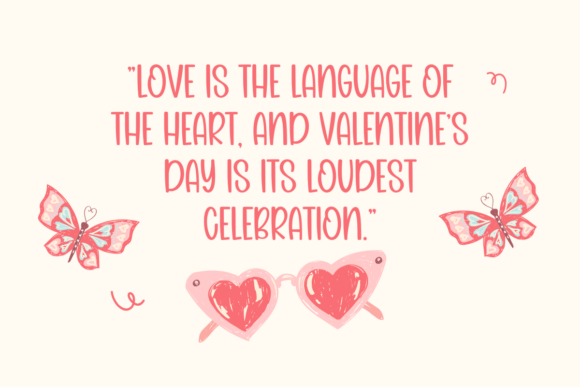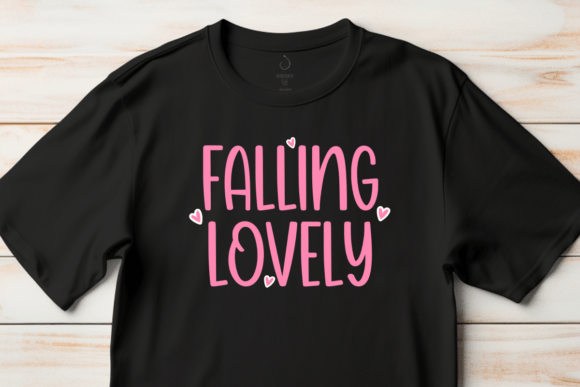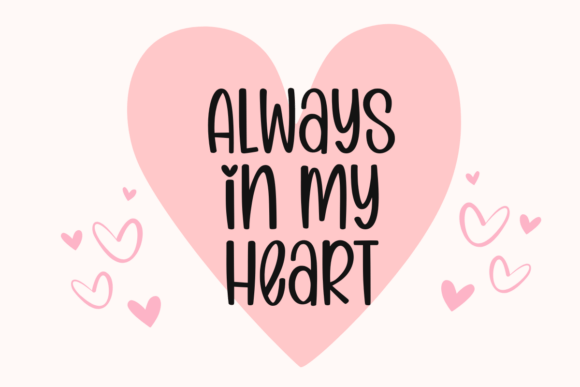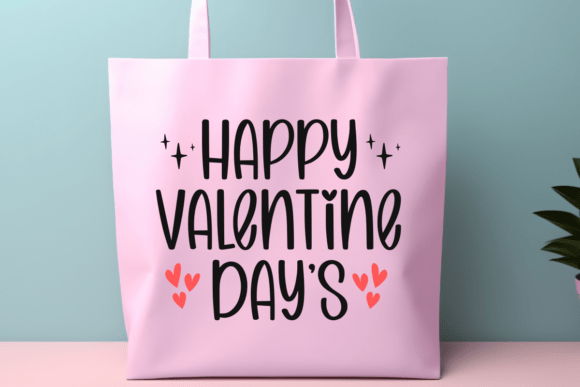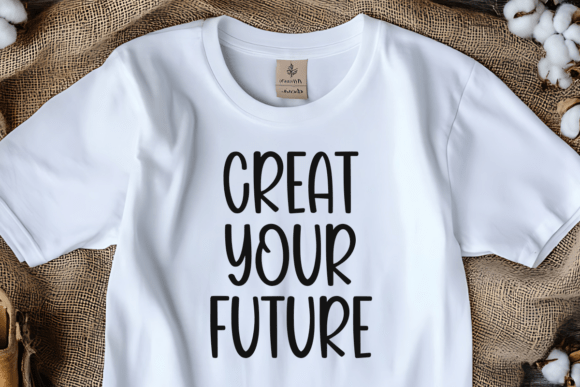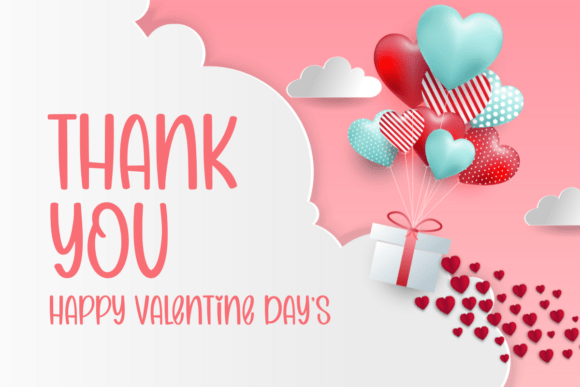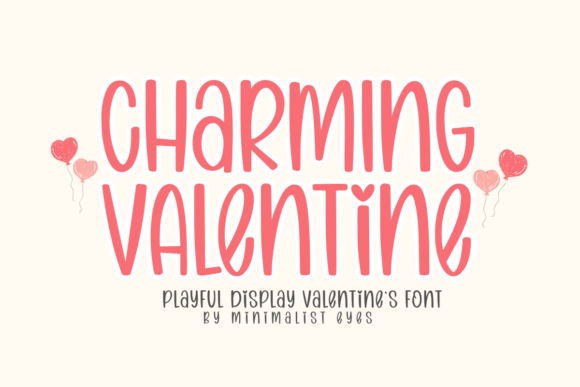
Introducing the Charming Valentine Font: A Cute and Friendly Display Font
Are you looking for a font that adds a touch of warmth and friendliness to your projects? Look no further than the Charming Valentine Font! Designed in a cute and friendly display font style, this font is perfect for a variety of fun projects, from diary planners to party decorations.
What Makes Charming Valentine Font So Special?
The Charming Valentine Font is a unique and versatile font that can be used for a wide range of projects. Its cute and friendly style makes it perfect for designs that require a personal touch. Whether you’re working on a project for Easter, back to school, wedding, party decorations, invitations, Fall, Summer, Winter, Halloween, Valentine Days, Christmas, or any other occasion, this font is sure to add a charming touch.
The Charming Valentine Font is a must-have for designers and crafters who want to add a personal touch to their projects. With its friendly and approachable style, this font is perfect for creating engaging and eye-catching designs. Whether you’re designing posters, blogs, clothing, kids-related designs, greeting cards, social media posts, or anything else, this font is sure to make your project stand out.
Use Charming Valentine Font for:
- Easter and Spring projects: Add a touch of whimsy to your Easter and Spring designs with this charming font.
- Back to School: Create fun and engaging school projects with this friendly font.
- Wedding and Party Decorations: Use this font to create beautiful and unique wedding and party decorations.
- Invitations: Create custom invitations for any occasion with this charming font.
- Fall, Summer, and Winter projects: Add a seasonal touch to your designs with this versatile font.
- Halloween and Valentine Days: Create spooky and sweet designs with this font.
- Christmas and Holiday projects: Add a festive touch to your holiday designs with this charming font.
- Posters and Flyers: Create eye-catching posters and flyers with this friendly font.
- Blogs and Social Media: Use this font to add a personal touch to your blog and social media posts.
- Clothing and Accessories: Create custom clothing and accessories with this unique font.
- Kids-related designs: Create fun and engaging designs for kids with this charming font.
- Greeting Cards: Create custom greeting cards for any occasion with this font.
Why Choose Charming Valentine Font?
There are many reasons why you should choose the Charming Valentine Font for your projects. Here are a few:
- Unique and Versatile: This font is unique and versatile, making it perfect for a wide range of projects.
- Cute and Friendly: The font’s cute and friendly style makes it perfect for designs that require a personal touch.
- Easily Readable: The font is easily readable, making it perfect for designs that require a clear and concise message.
- High-Quality: The font is of high-quality, making it perfect for professional designs.
The Charming Valentine Font is a must-have for designers and crafters who want to add a personal touch to their projects. With its cute and friendly style, this font is perfect for a wide range of projects, from Easter and Spring designs to wedding and party decorations. Its versatility and high-quality make it a great addition to any font library. So why wait? Add the Charming Valentine Font to your font library today and start creating charming designs!